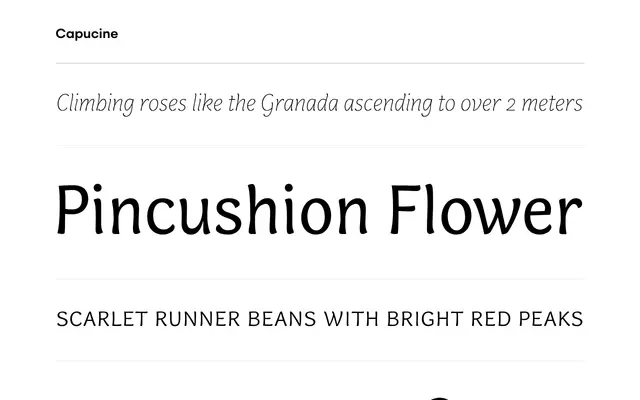
Capucine
Process Type Foundry · Alice Savoie · 2010
A five-weight sans serif by Alice Savoie that blends handwriting fluidity with brush script energy, producing especially characterful italics.
Designed by Alice Savoie and released in 2010, Capucine spans five weights across ten styles, with italics that carry a distinctly calligraphic quality most visible at display sizes. The family works across editorial contexts from magazine listings to expressive headlines, supported by a thorough OpenType feature set including small caps, old style and tabular numerals, stylistic alternates and pre-built fractions. Its handwritten informality keeps it lively without tipping into novelty.
Despite being classified as a sans serif, Capucine draws heavily on handwriting and brush script influences, giving it a humanist character with distinctly calligraphic italics that set it apart from conventional grotesque or geometric models.